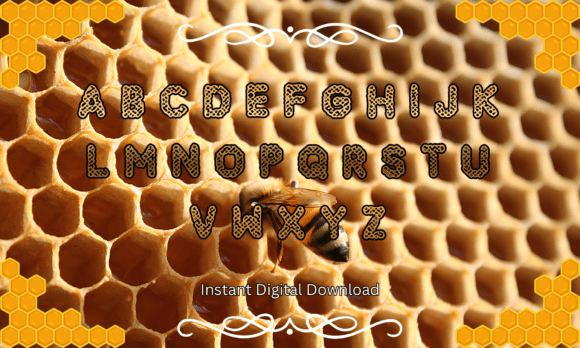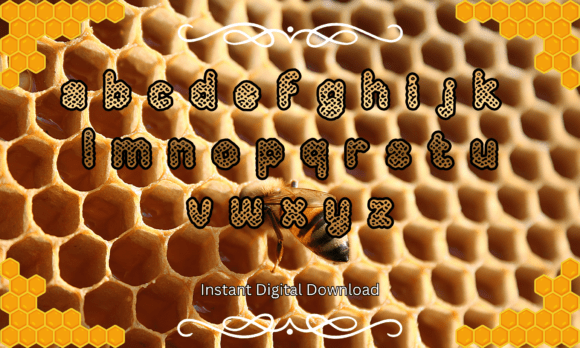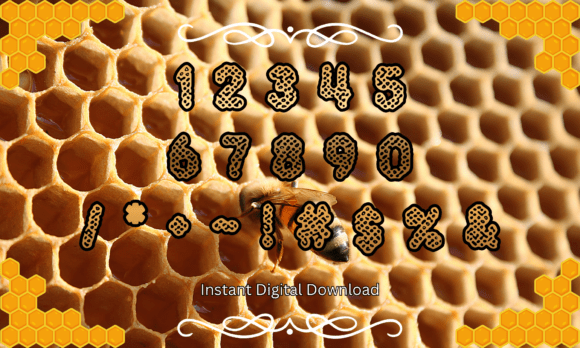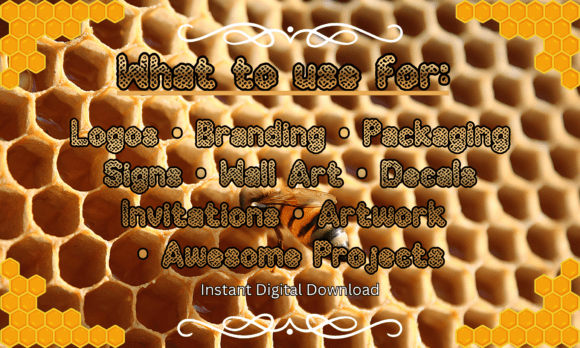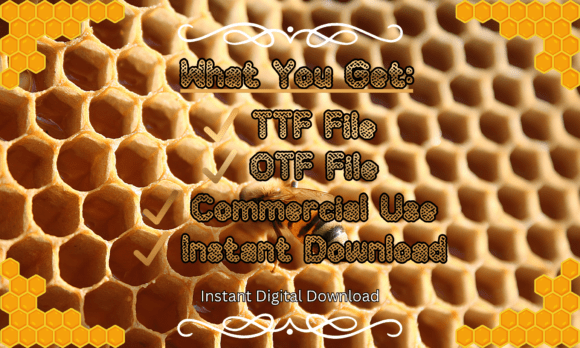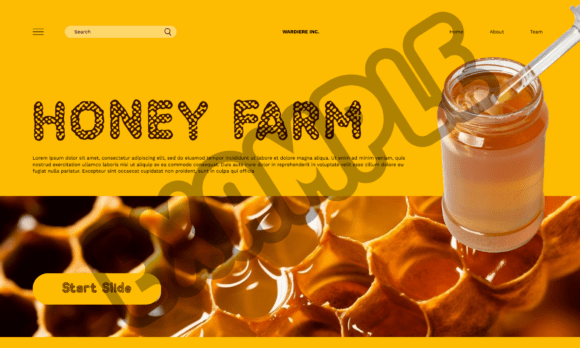
A Sweet Addition to Your Creative Projects
Have you ever stared at a blank page, desperate for that one element that will bring your design to life? For many creatives, it’s the perfect font that sets the tone for a project’s personality and style. That’s where the Honeycomb Font comes in – a delightful, textured font that captures the warmth and charm of golden honey.
This adorable font is inspired by the intricate patterns found in honeycombs, making it a perfect fit for bee-themed projects, kids’ crafts, and playful branding. With its unique, handcrafted aesthetic, Honeycomb Font adds a touch of whimsy to any design. Whether you’re a crafter, small business owner, or educator, this font is a valuable addition to your creative toolkit.
With its versatility and charm, Honeycomb Font is sure to become a favorite among designers and creatives. In this article, we’ll dive into the details of this sweet font and explore its many uses and applications.
Honeycomb Font Key Features
- Font Family: Honeycomb Font comes in 2 font styles, Honeycomb Regular and Honeycomb Outline.
- Font Size: Supports font sizes from 8pt to 100pt, making it suitable for various design applications.
- Resolution: Designed to be resolution-independent, ensuring crisp and clear text at any resolution.
- Unique Characteristics: Honeycomb Font features a unique honeycomb pattern, adding a touch of modernity and sophistication to any design.
Honeycomb Font Review
I recently had the chance to work with the Honeycomb font, and I must say it’s an interesting choice. Here are my thoughts.
- The unique, hexagonal shape of the font makes it perfect for designs that require a sense of playfulness or edginess.
- The font is highly customizable, allowing designers to adjust the size, color, and spacing to fit their needs.
- The font is also quite versatile, working well in both digital and print designs.
- The font can be a bit difficult to read, especially at smaller sizes. This may not be suitable for body text or long blocks of text.
- The font’s unique shape can also make it challenging to use in certain contexts, such as in designs where legibility is crucial.
The Honeycomb font is a great choice for designers looking to add a touch of whimsy or personality to their designs. However, it’s essential to use it judiciously, reserving it for titles, headings, or other areas where its unique shape can shine. With careful use, the Honeycomb font can be a valuable addition to any designer’s toolkit.
The Honeycomb font is ideal for:
– Food packaging labels
– Children’s educational materials
– Cosmetic product branding
– Playful and creative designs
For best results, use the Honeycomb font in combination with bold and colorful graphics. Experiment with different font sizes and colors to create a visually appealing design.
What are the technical requirements for using the Honeycomb Font?